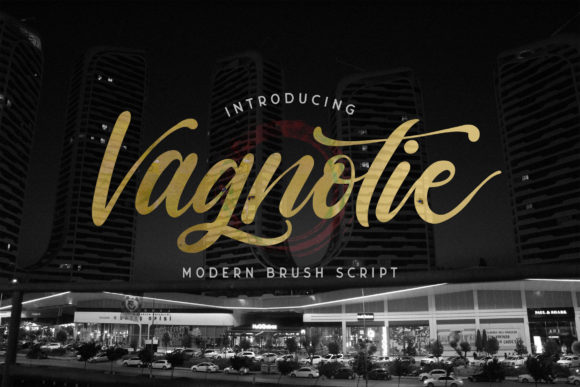
About Vagnotie Font
Vagnotie is a modern hand-brush font. It maintains its classy calligraphic influences while feeling contemporary and fresh. This versatility will appeal to a wide range of crafty ideas, from letterheads and titles, to stationery.
This font is PUA encoded which means you can access all of the great glyphs and swashes with ease! It also features a wealth of special features including alternate glyphs and ligatures.